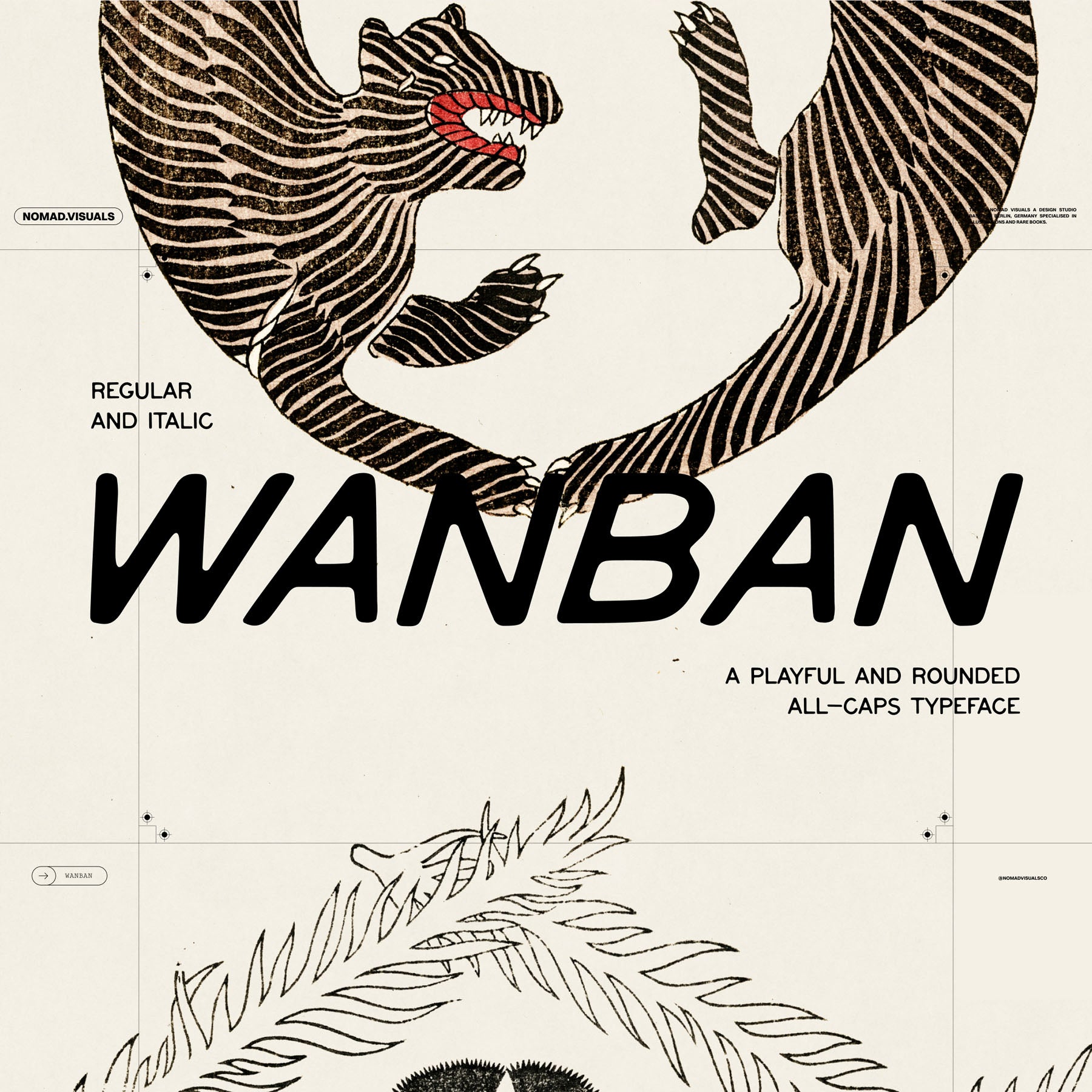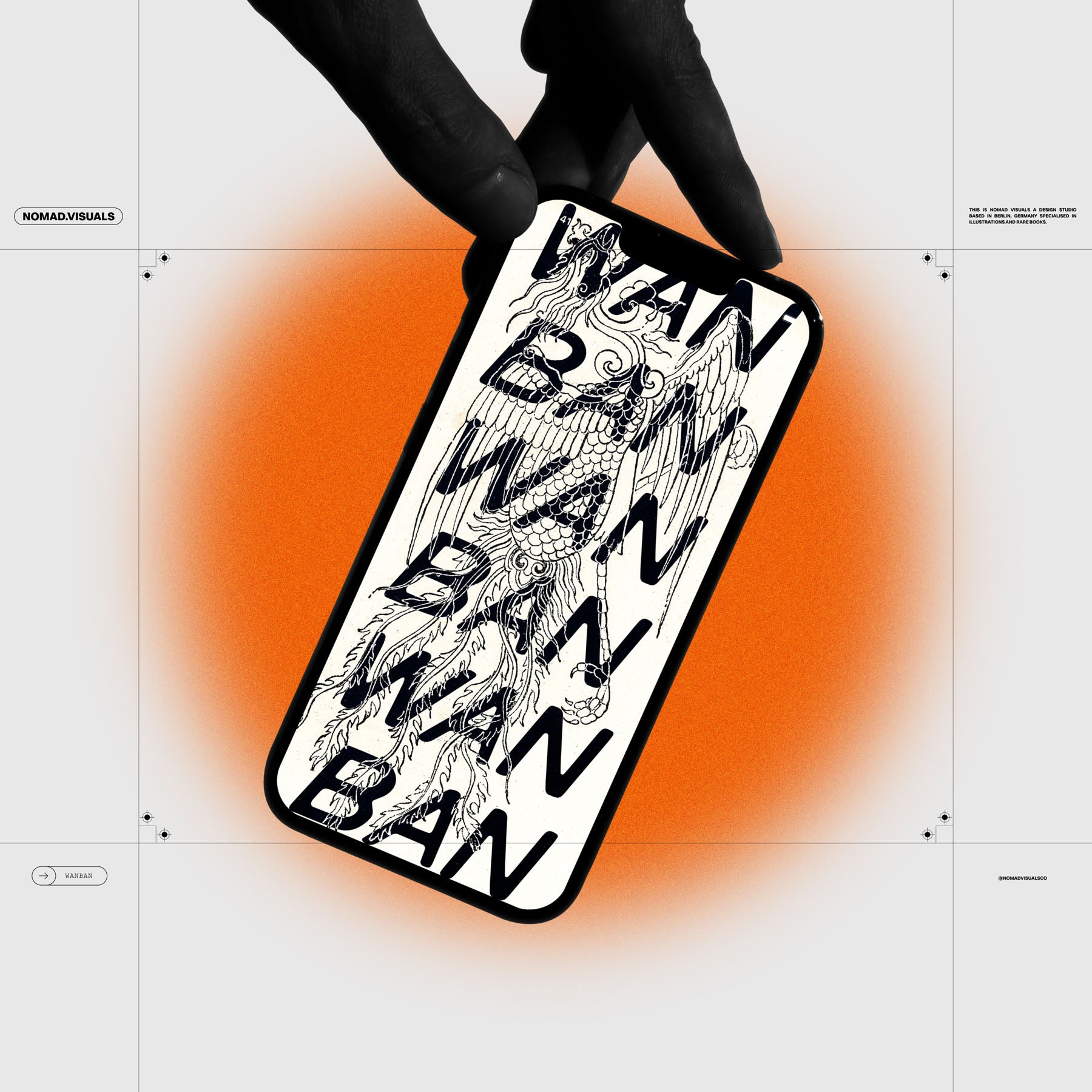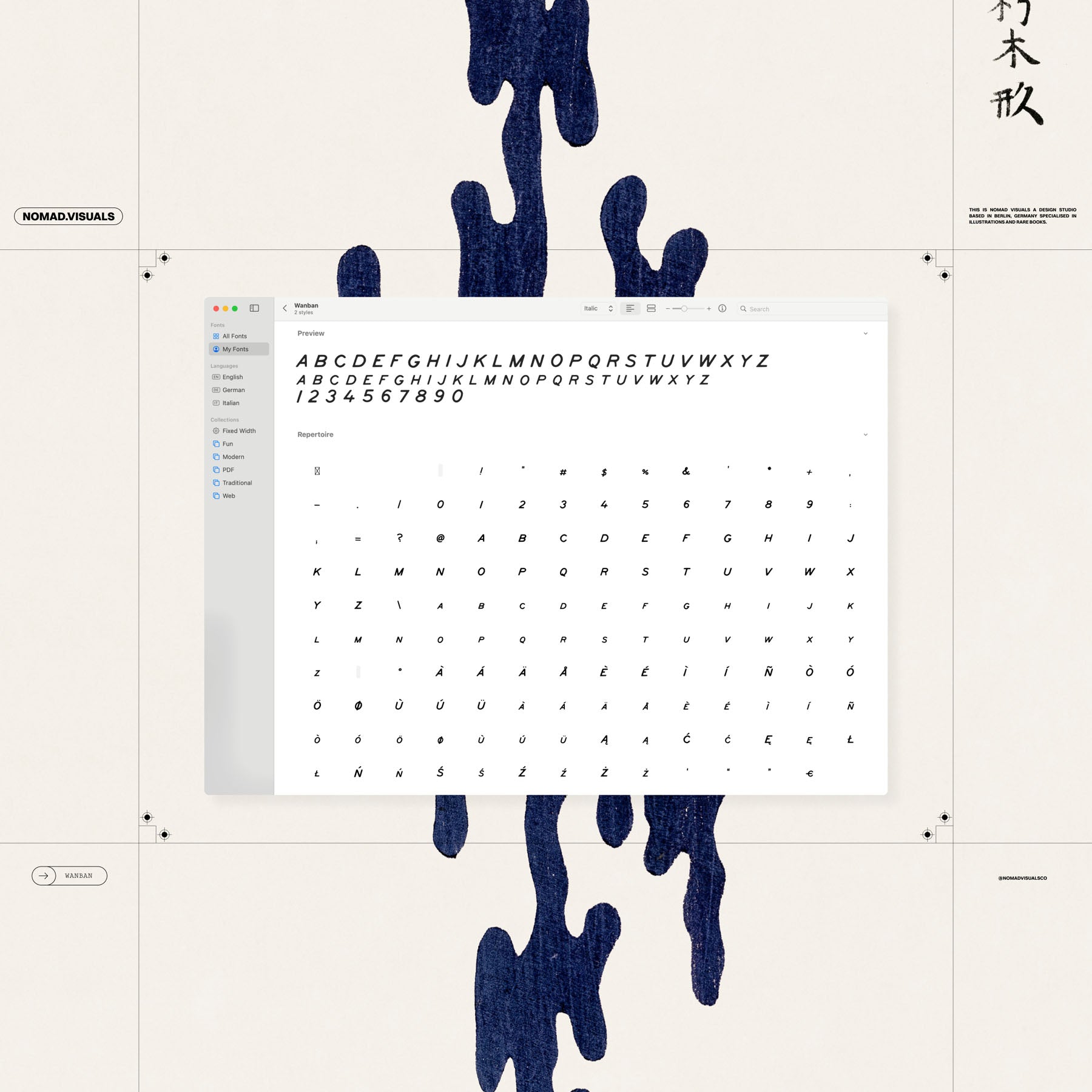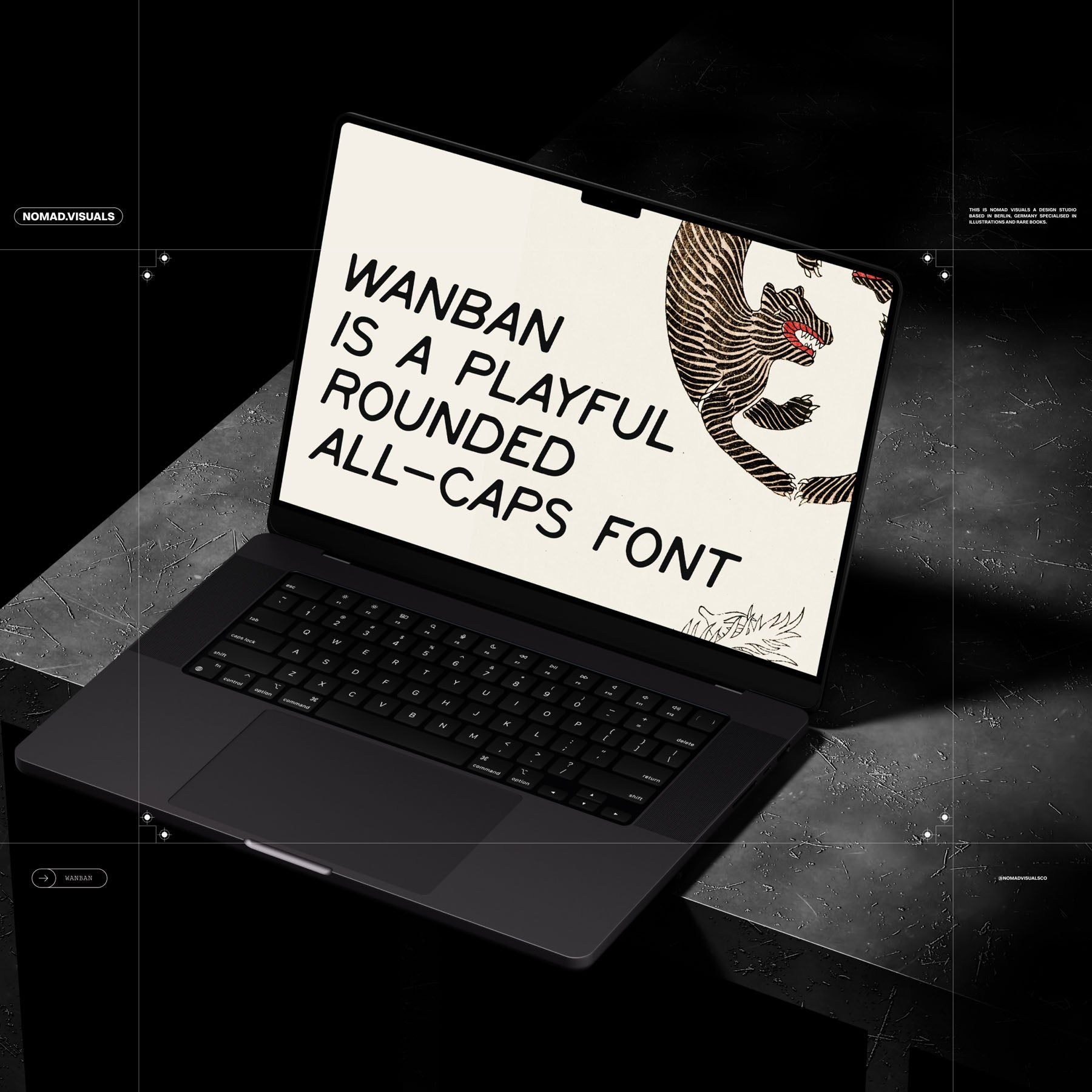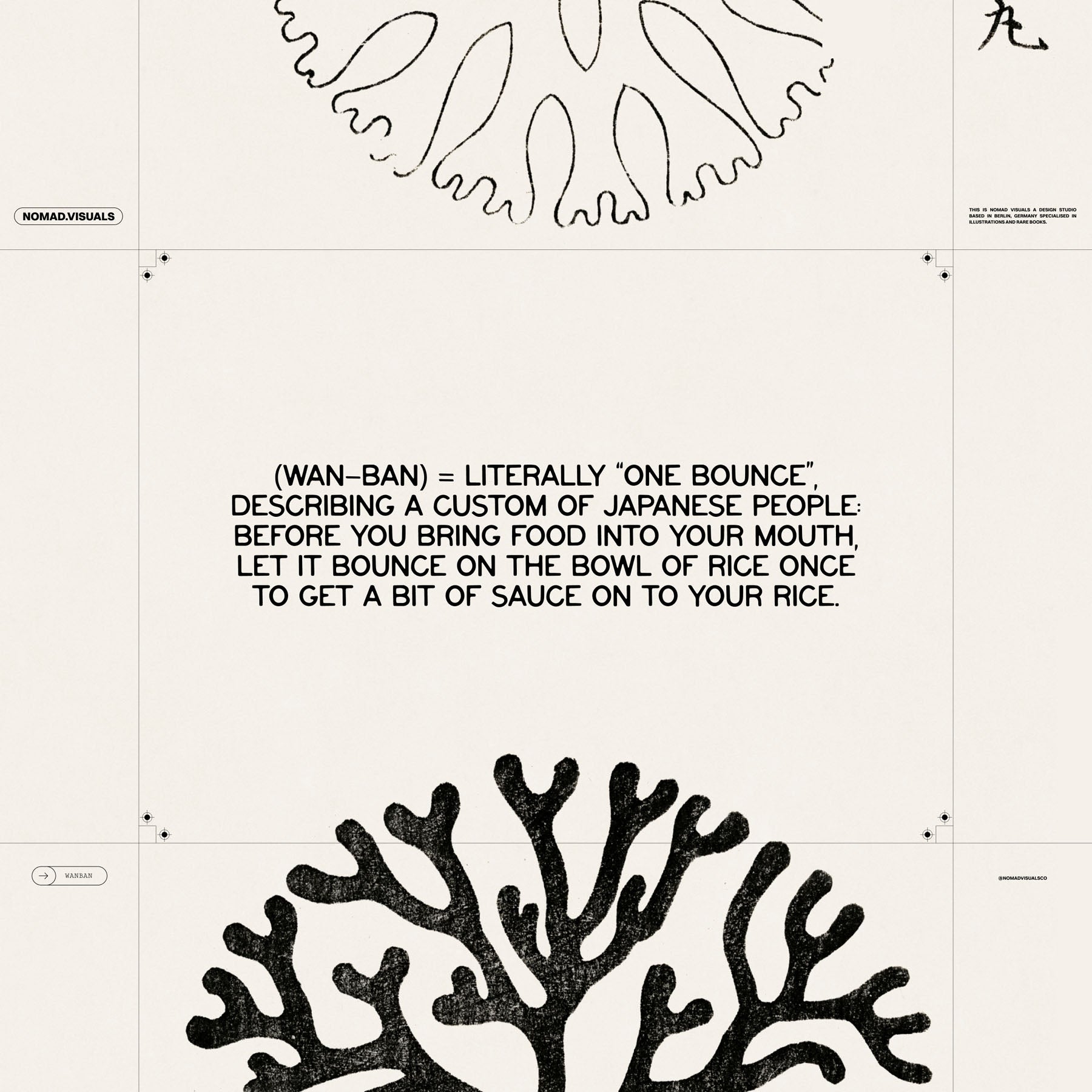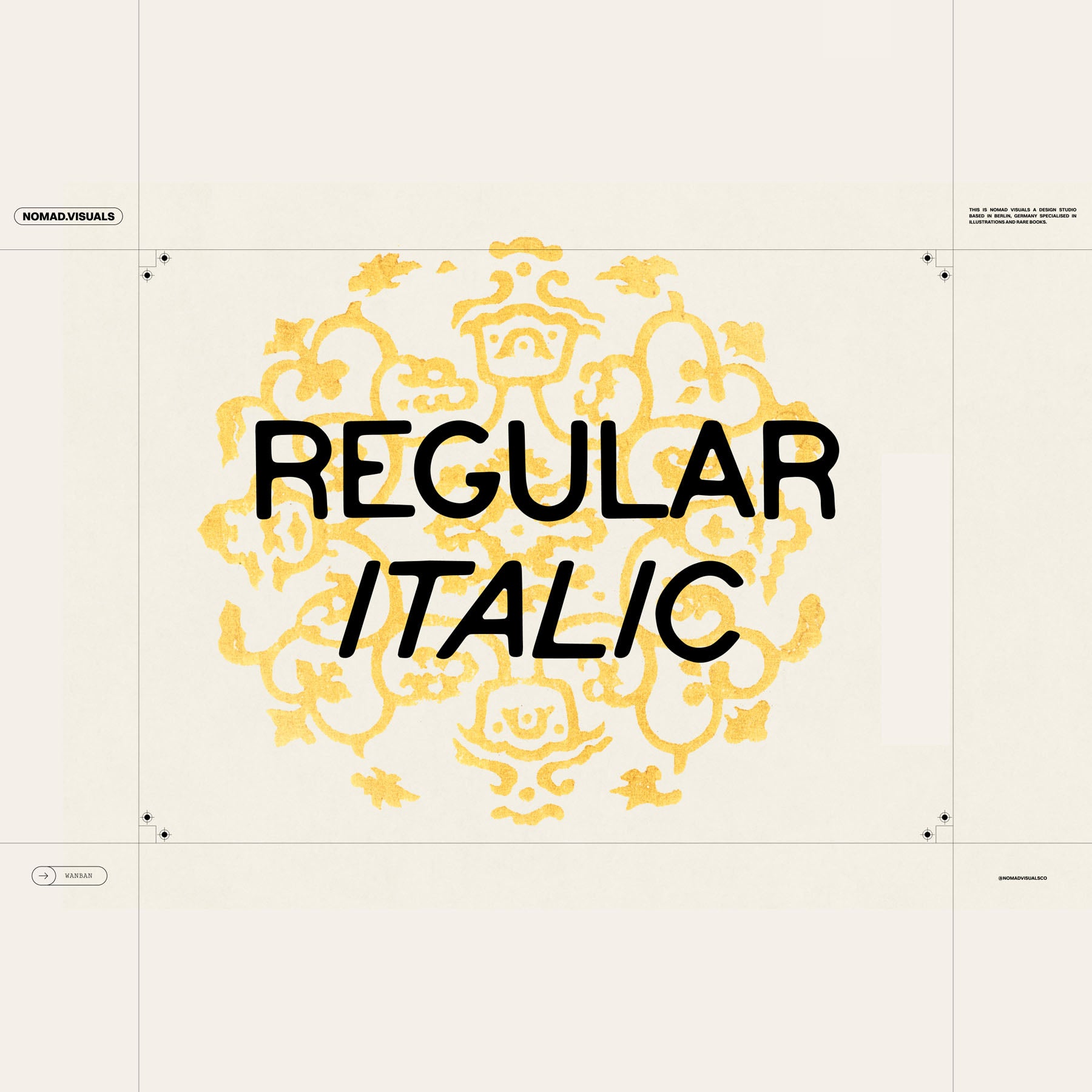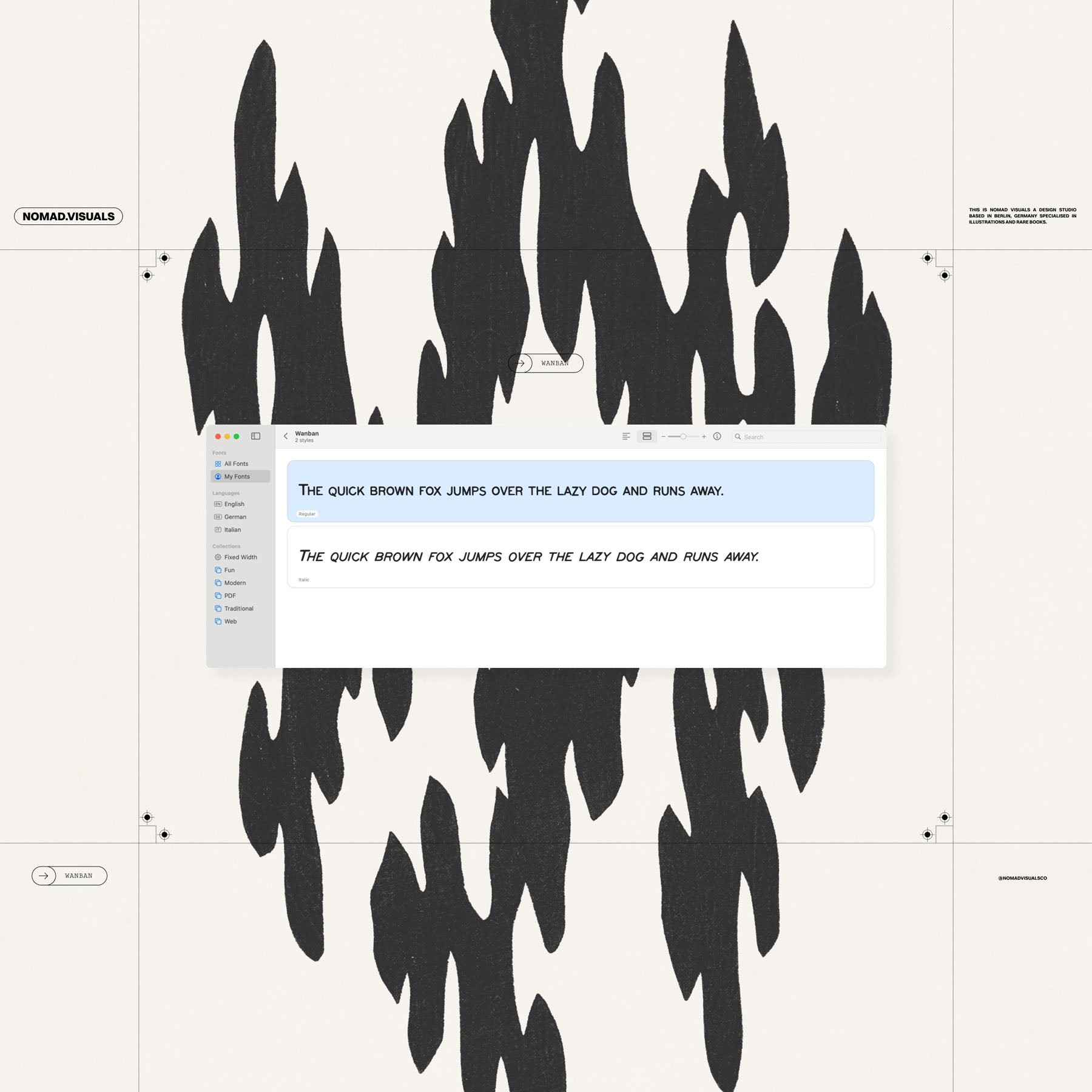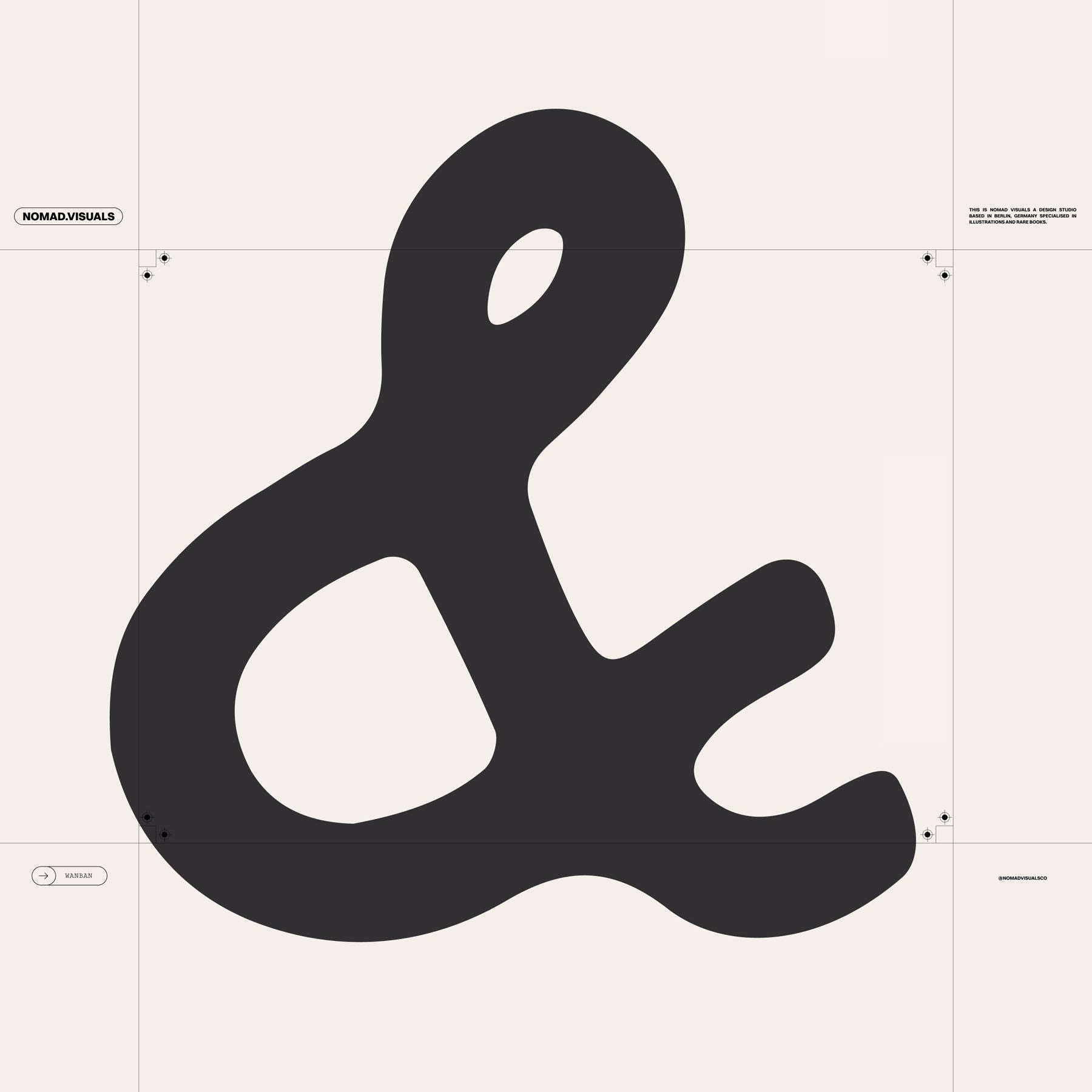
Wanban Font
Introducing Wanban, a playful and rounded all-caps typeface that will add a fun touch to any design project. With its hand-drawn feel, Tate is the perfect choice for those looking to infuse their work with a touch of whimsy and character.
Featuring uppercases, numbers, and a basic set of punctuation, Wanban is versatile enough to use in a range of design projects. Use it in logo design, branding, and labels to create a unique and eye-catching look that will set your work apart.
With its playful and friendly vibe, Wanban is perfect for digital products and websites. Whether you're designing an app or creating a website, Wanban will add a touch of personality and charm that will delight your audience and make your work truly memorable.
Wanban font includes new special characters with accents Å Ø Ä Ö Á É Í Ó Ú Ü Ñ Ą Ć Ę Ł Ń Ó Ś Ź Ż À È Ì Ò Ù in both versions Regular and Italic.